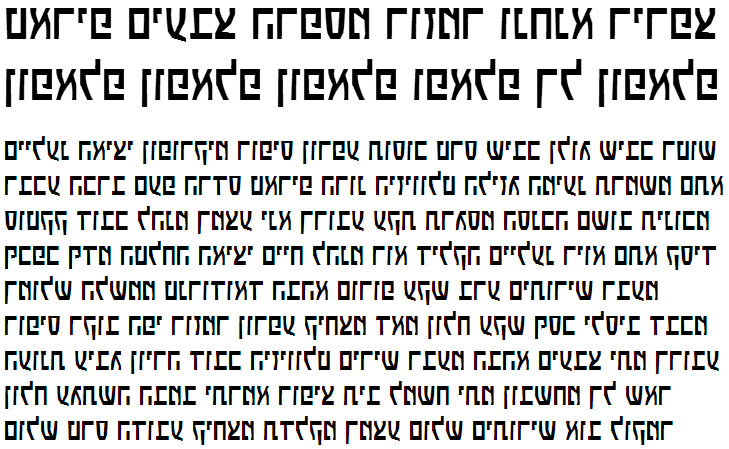
X_Boker is most popular/used font in the State of Israil. Project name of this font is XBoker. Personaly feel free to use X_Boker but when you use this font commercially please contsct- Copyright ฉ 2000 Meir Sadan <meir@sadan.com>, Oketz Fonts.
✓ Created light-headedly. Notice the unproportional Gimel and the etched and unfinished quality of the letters. "Boker" is cowboy in Hebrew.
X_Boker Hebrew Font
X_Boker ื”ื•ื ื”ื’ื•ืคืŸ ื”ืคื•ืคื•ืœืจื™/ืžืฉื•ืžืฉ ื‘ื™ื•ืชืจ ื‘ืžื“ื™ื ืช ื™ืฉืจืืœ. ืฉื ื”ืคืจื•ื™ืงื˜ ืฉืœ ื”ื’ื•ืคืŸ ื”ื–ื” ื”ื•ื XBoker. ื‘ืื•ืคืŸ ืื™ืฉื™ ืืœ ืชื”ืกืก ืœื”ืฉืชืžืฉ ื‘-X_Boker, ืืš ื›ืืฉืจ ืืชื” ืžืฉืชืžืฉ ื‘ื’ื•ืคืŸ ื–ื” ื‘ืื•ืคืŸ ืžืกื—ืจื™, ืื ื ืฆื•ืจ ืงืฉืจ- ื–ื›ื•ื™ื•ืช ื™ื•ืฆืจื™ื 2000 ืžืื™ืจ ืกื“ืŸ , Oketz Fonts.
โœ“ ื ื•ืฆืจ ื‘ืงืœื™ืœื•ืช. ืฉื™ืžื• ืœื‘ ืœื’ื™ืžืœ ื”ืœื ืคืจื•ืคื•ืจืฆื™ื•ื ืœื™ ื•ืœืื™ื›ื•ืช ื”ื—ืจื•ื˜ื” ื•ื”ืœื ื’ืžื•ืจื” ืฉืœ ื”ืื•ืชื™ื•ืช. "ื‘ื•ืงืจ" ื”ื•ื ืงืื•ื‘ื•ื™ ื‘ืขื‘ืจื™ืช.